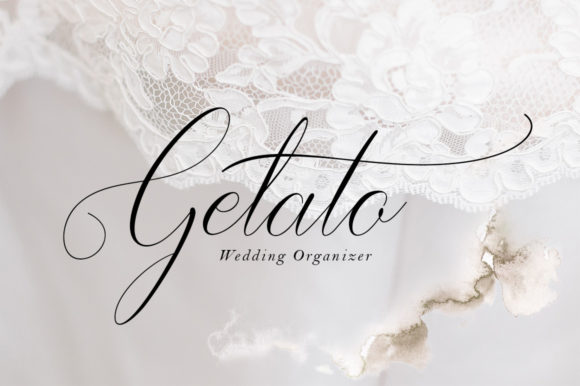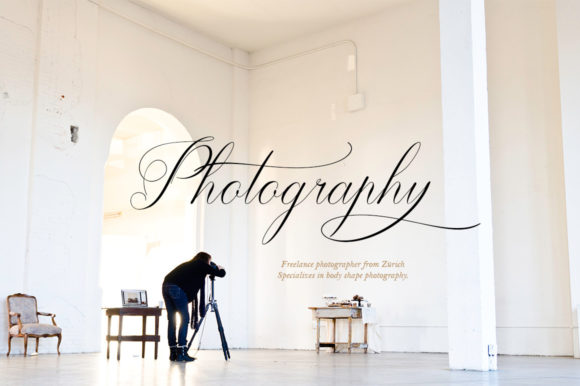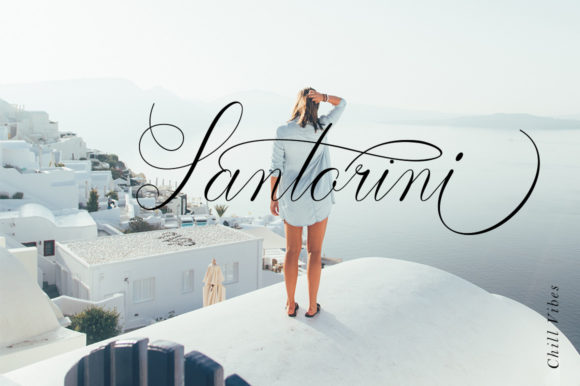
Discover the Elegance of Emely Font: A Delicate Handwritten Masterpiece
Are you a designer or crafter looking for a font that exudes elegance and sophistication? Look no further than Emely Font, a delicate and handwritten font that is sure to capture your heart. With its distinct and well-balanced letters, Emely Font is a masterpiece that can elevate your designs to new heights.
The Characteristics of Emely Font
Emely Font is a handwritten font that boasts a unique and refined style. Its delicate strokes and elegant letterforms make it perfect for a wide range of design applications, from wedding invitations and branding materials to packaging and digital media. The font’s versatility is one of its standout features, allowing you to use it in various contexts and still achieve a cohesive look.
What Makes Emely Font So Special?
So, what sets Emely Font apart from other fonts? Here are a few key characteristics that make it a standout:
- Delicate and elegant: Emely Font features delicate strokes and elegant letterforms that give it a refined and sophisticated feel.
- Distinct and well-balanced letters: Each letter in the Emely Font is carefully crafted to ensure that it is distinct and well-balanced, making it easy to read and visually appealing.
- Incredibly versatile: Emely Font can be used in a wide range of design applications, from formal events to digital media.
Using Emely Font in Your Designs
Emely Font is an incredibly versatile font that can be used in various design applications. Here are a few ideas to get you started:
- Wedding invitations and stationery: Emely Font is perfect for creating elegant and sophisticated wedding invitations, save-the-date cards, and other stationery.
- Branding and packaging: Use Emely Font to create a cohesive brand identity that exudes elegance and refinement.
- Digital media: Emely Font can be used in digital media, such as social media graphics, blog headers, and email newsletters.
- Crafting and DIY projects: Emely Font can also be used in crafting and DIY projects, such as handmade cards, scrapbooking, and other paper crafts.
Tips for Getting the Most Out of Emely Font
To get the most out of Emely Font, here are a few tips:
- Experiment with different sizes and colors: Emely Font looks great in various sizes and colors, so don’t be afraid to experiment and find the perfect combination for your design.
- Pair it with other fonts: Emely Font can be paired with other fonts to create a unique and visually appealing design.
- Use it consistently: To create a cohesive look, use Emely Font consistently throughout your design.
Emely Font is a delicate and elegant handwritten font that is sure to capture your heart. With its distinct and well-balanced letters, incredibly versatile style, and wide range of design applications, Emely Font is a masterpiece that can elevate your designs to new heights. Whether you’re a designer or crafter, Emely Font is a must-have font that can help you create spectacular designs.
Get Ready to Fall in Love with Emely Font
So, what are you waiting for? Fall in love with Emely Font and discover the elegance and sophistication it can bring to your designs. With its unique characteristics, versatility, and wide range of design applications, Emely Font is the perfect font for anyone looking to create beautiful and eye-catching designs.